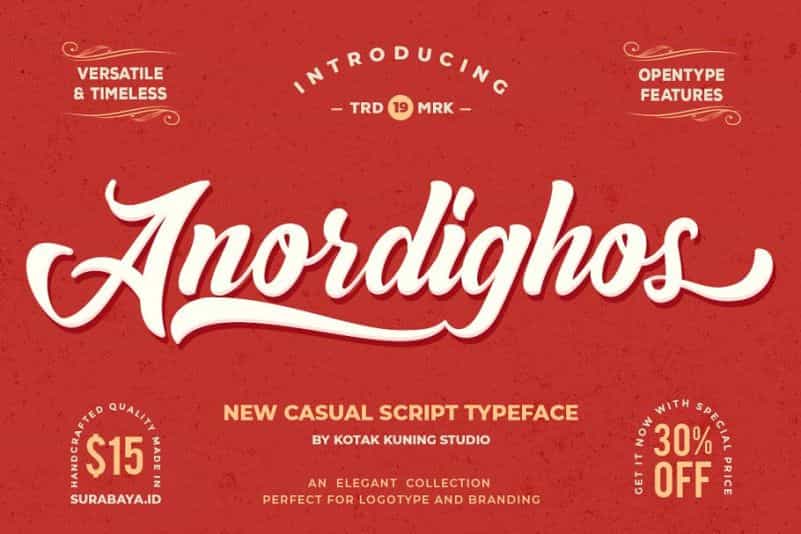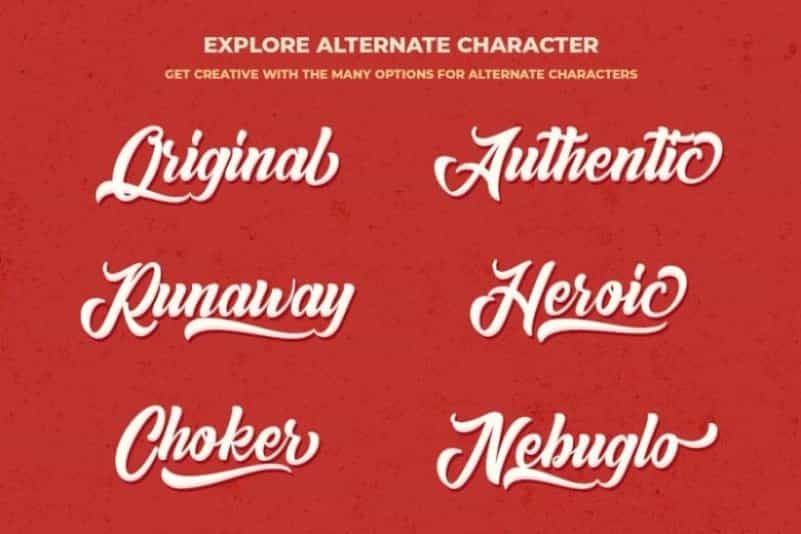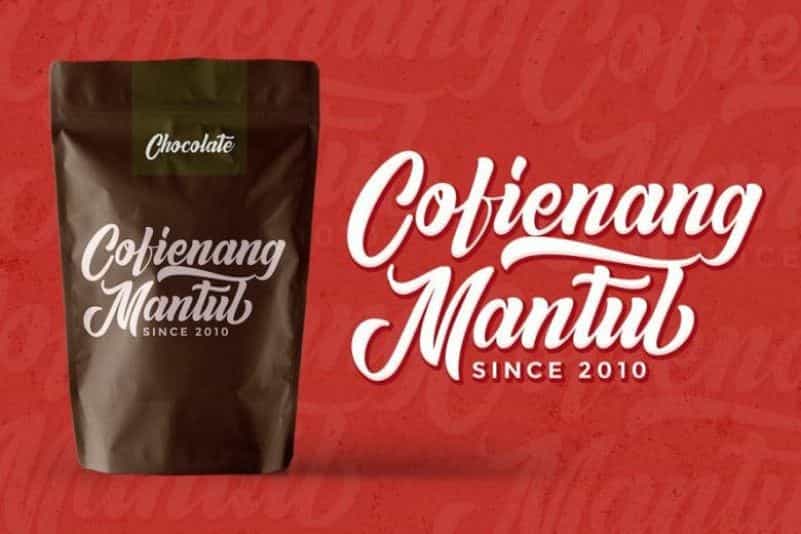
The new product, Anordighos Font is a script font that has a simple and classy look. It is the best option for fashion, label and other design projects. It is designed and shared by Kotak Kuning Studio. A casual script typeface and the combination with Hand Lettering style which gives more personal touch to the font is like being customized.